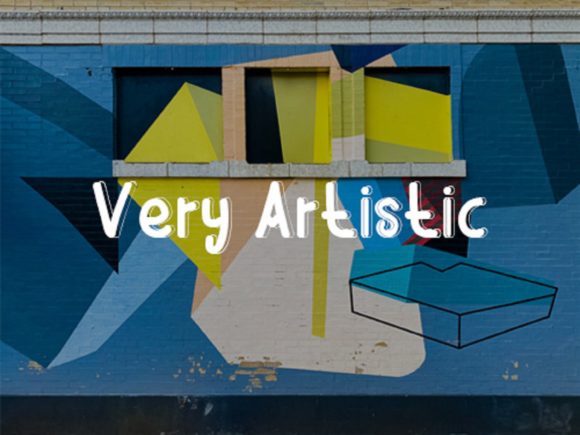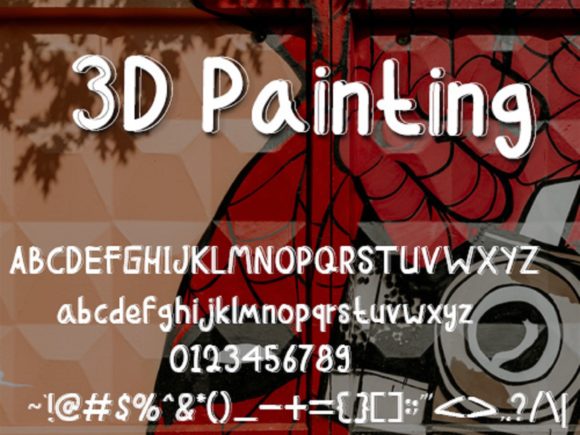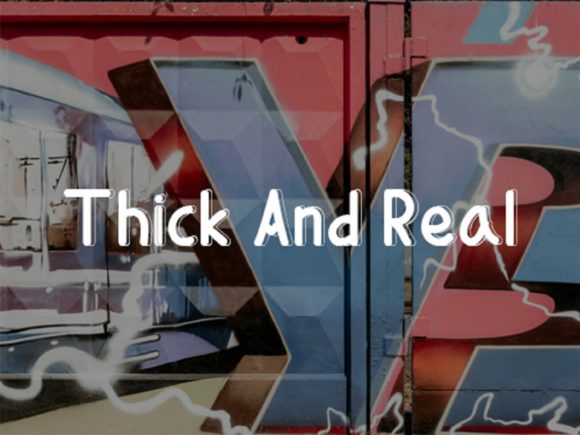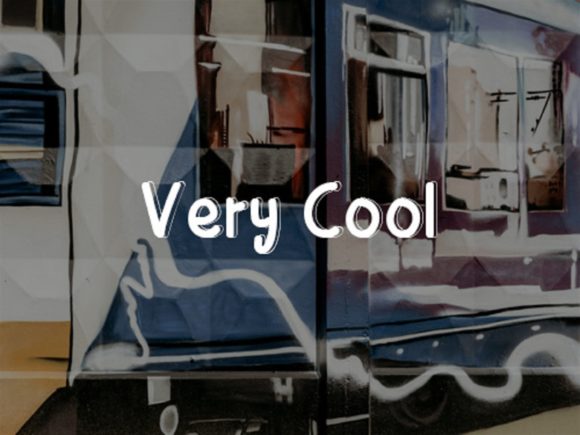
Introducing 3D Painting Font: Elevate Your Designs with a Cool and Awesome Display Font
Are you tired of using the same old fonts in your designs? Do you want to add a touch of creativity and uniqueness to your projects? Look no further than the 3D Painting Font! This incredible display font is a game-changer for designers and crafters alike, and we’re excited to dive into its amazing features and benefits.
What is 3D Painting Font?
3D Painting Font is a stunning display font that boasts a one-of-a-kind, 3D effect, reminiscent of hand-painted artwork. Its distinctive style is sure to grab attention and make your designs stand out from the crowd. Whether you’re working on a logo, poster, social media graphic, or any other project, this font is guaranteed to add a cool and awesome touch.
Why You’ll Love 3D Painting Font
No matter the topic or theme, 3D Painting Font is an incredibly versatile asset that can elevate any creation. Here are just a few reasons why you’ll love adding this font to your library:
- Unique and Creative: The 3D Painting Font is a true showstopper, offering a fresh and innovative style that will set your designs apart.
- Highly Versatile: From bold and playful to elegant and sophisticated, this font can adapt to any design style or theme.
- Easy to Use: With its clear and clean design, 3D Painting Font is simple to read and works beautifully in a variety of contexts.
- Attention-Grabbing: The 3D effect of this font demands attention, making it perfect for headlines, titles, and other prominent design elements.
How to Use 3D Painting Font in Your Designs
Ready to unleash the creative potential of 3D Painting Font? Here are some ideas to get you started:
- Logos and Branding: Create a memorable and eye-catching logo that showcases your brand’s personality.
- Posters and Flyers: Add a bold and attention-grabbing headline to your promotional materials.
- Social Media Graphics: Elevate your social media presence with stunning, 3D-text graphics.
- Packaging Design: Add a creative and artistic touch to your product packaging.
Tips and Tricks for Working with 3D Painting Font
To get the most out of 3D Painting Font, here are some expert tips and tricks:
- Experiment with Colors: Try pairing the font with bold, bright colors to amplify its 3D effect.
- Play with Texture: Add an extra layer of depth by combining the font with textured backgrounds or overlays.
- Balance and Contrast: Ensure your design remains balanced and easy to read by balancing the font with contrasting elements.
In conclusion, 3D Painting Font is an awesome and cool display font that deserves a spot in every designer’s library. Its unique 3D effect, versatility, and attention-grabbing style make it an incredibly valuable asset for any creative project. Whether you’re a seasoned designer or a crafty DIY enthusiast, this font is sure to inspire and elevate your designs.